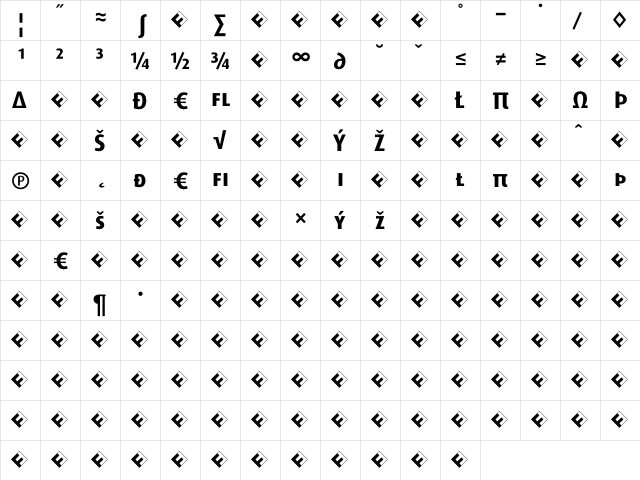
Dax-BoldCapsExp Regular
Design Context for Dax-BoldCapsExp Typeface
Dax-BoldCapsExp offers clean, dependable letterforms without strong stylistic allegiance, making it a practical choice for designers who need flexibility. The heavy weight commands attention and anchors typographic hierarchies.